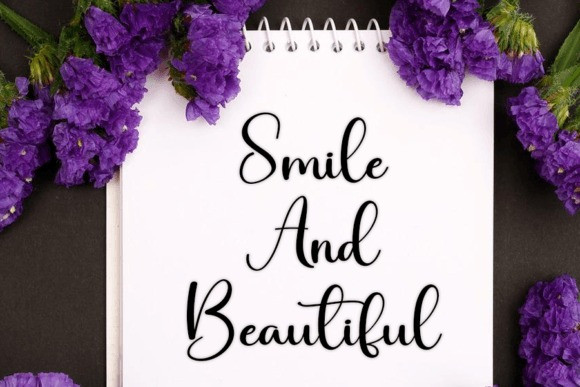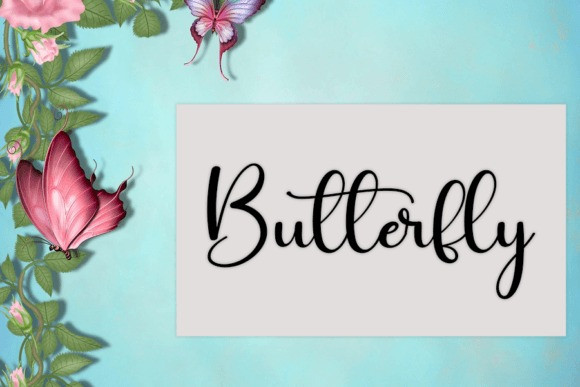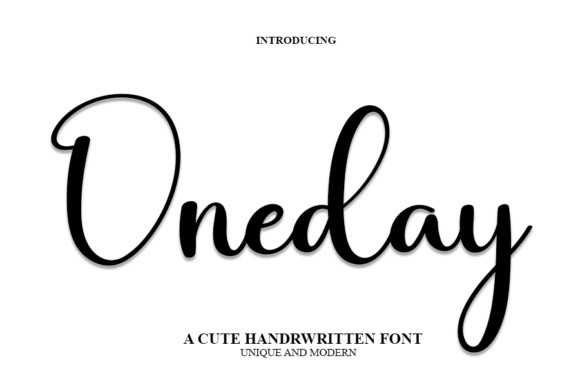
Oneday Font
Oneday Font is an elegant and feminine typeface suitable for all types of headlines. It will be a perfect choice for all kinds of wedding stationery, invitations, florists, packaging, and social media posts.